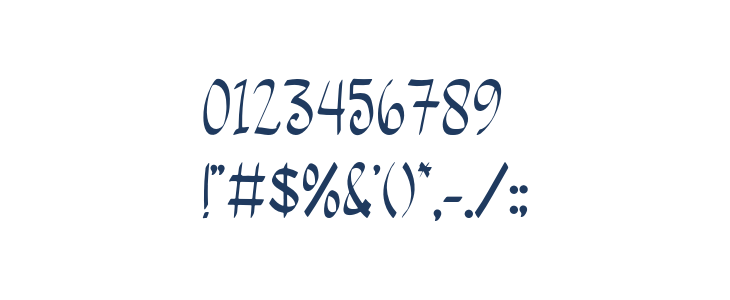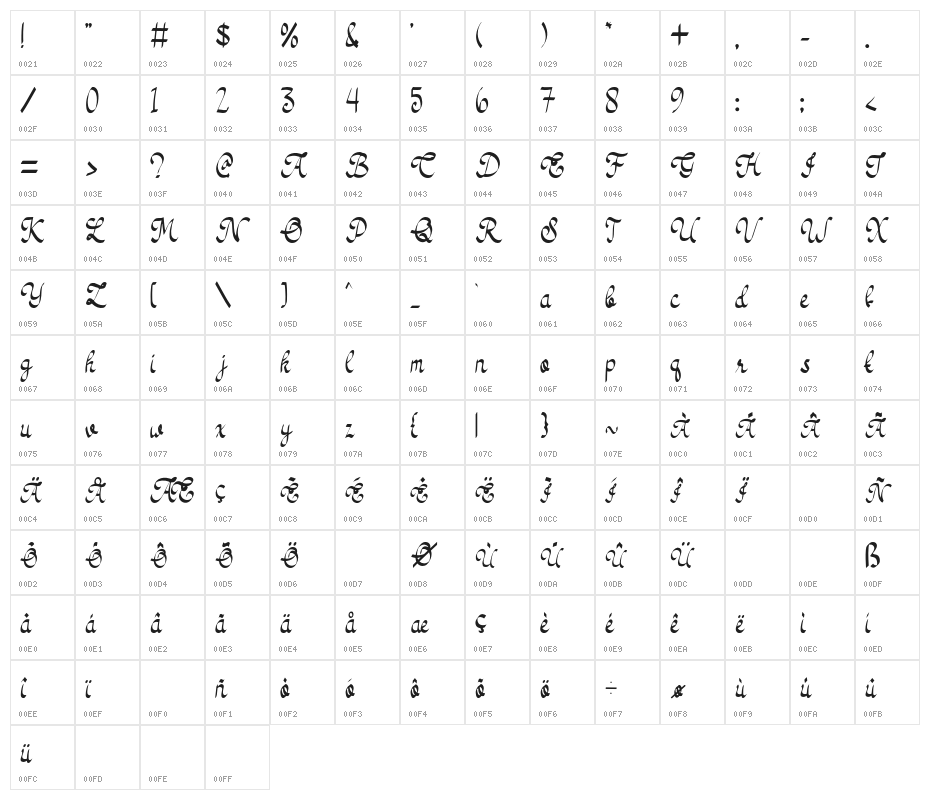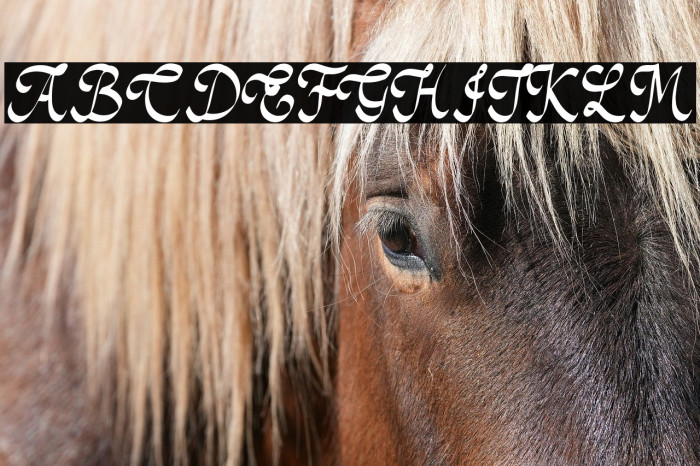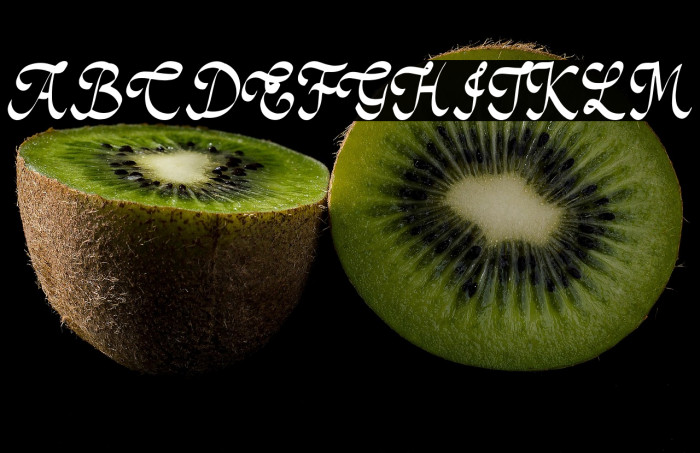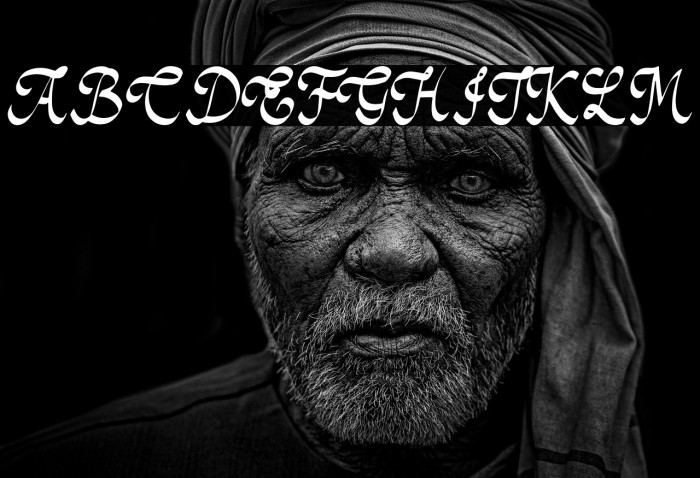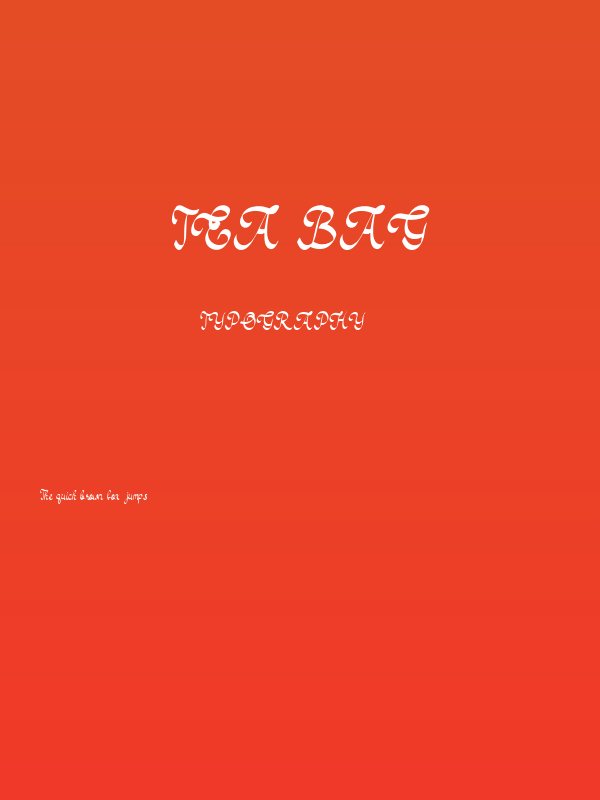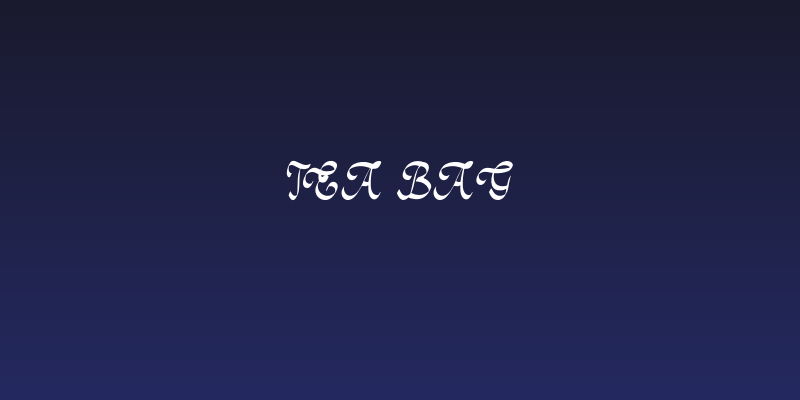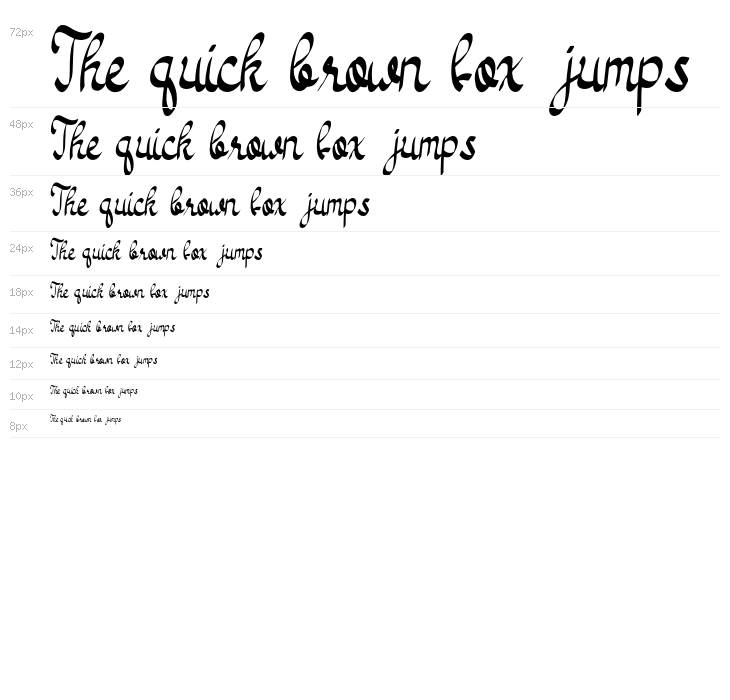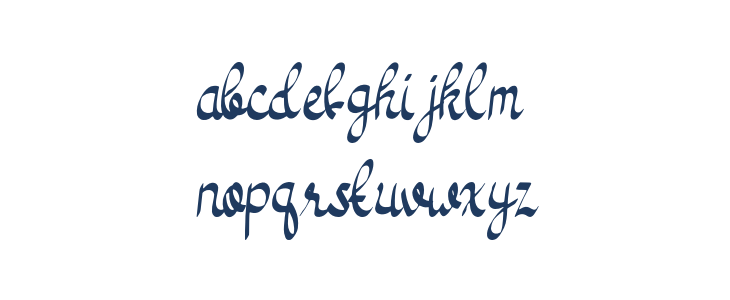
Tea Bag Font
Tea Bag Description
This font features a flowing, cursive style that exudes elegance and sophistication. The characters are connected in a smooth, continuous manner, giving it a handwritten appearance. The uppercase letters are slightly more ornate, with flourishes that add a touch of flair. The lowercase letters maintain a consistent flow, enhancing readability while preserving the artistic style. Numbers and special characters are designed to match the overall aesthetic, ensuring a cohesive look across all text. This font is ideal for projects that require a personal, artistic touch, such as invitations, greeting cards, or branding materials.
A flowing, cursive font with an elegant, handwritten style from Uncategorized fonts.
- Font: Tea Bag
- Proposed Projects: Ideal for invitations, greeting cards, branding materials, and artistic projects.
- Overall Style: Elegant, Artistic
- Use Case: Headlines, Logos, Invitations